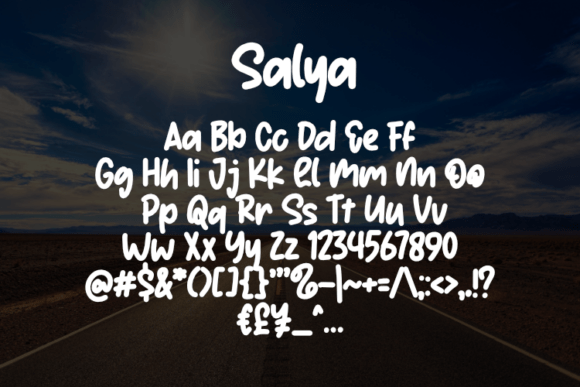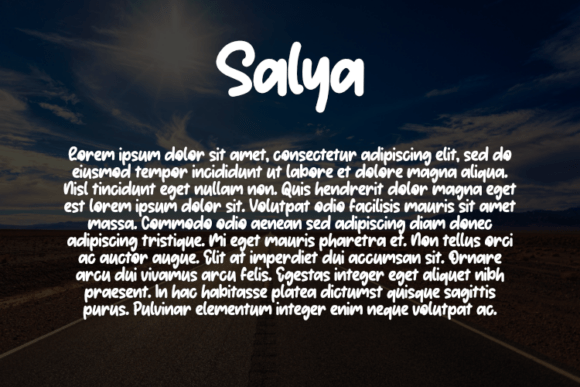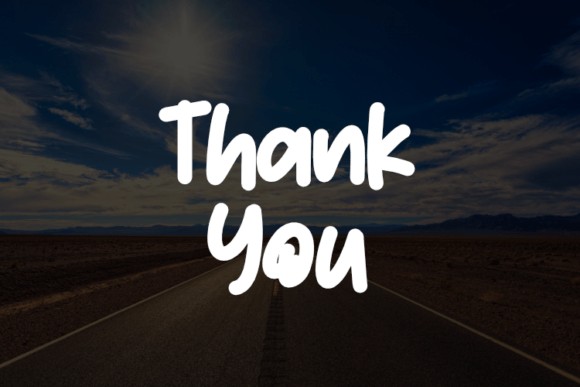
Introduction to Salya Font
Unveiling Salya, a contemporary and sophisticated typeface engineered to seamlessly adapt and ensure outstanding legibility across diverse platforms.
Key Features of Salya Font
Why Choose Salya Font?
Salya Font offers exceptional quality and versatility, making it a valuable addition to your design toolkit. Whether you’re creating for personal projects or commercial use, Salya Font delivers professional results.